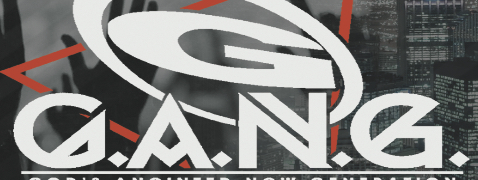
Need Font name
Please need help identifying this font
Please help me find the name of the font that spells G.A.N.G on the image can’t seem to find it anywhere
because of the look of it, I'd say to look at Nordic looking fonts. They have a Futhark style to them. Maybe they just added that in, but it's worth a shot to search it that way.